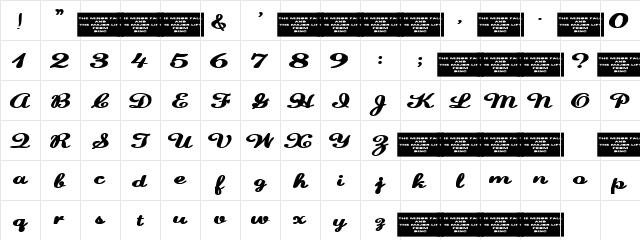
Minor Fall Regular Free Font
Minor Fall Regular
Design Context for Minor Fall
Minor Fall is a composed and adaptable typeface that performs quietly and consistently across a wide range of design contexts.